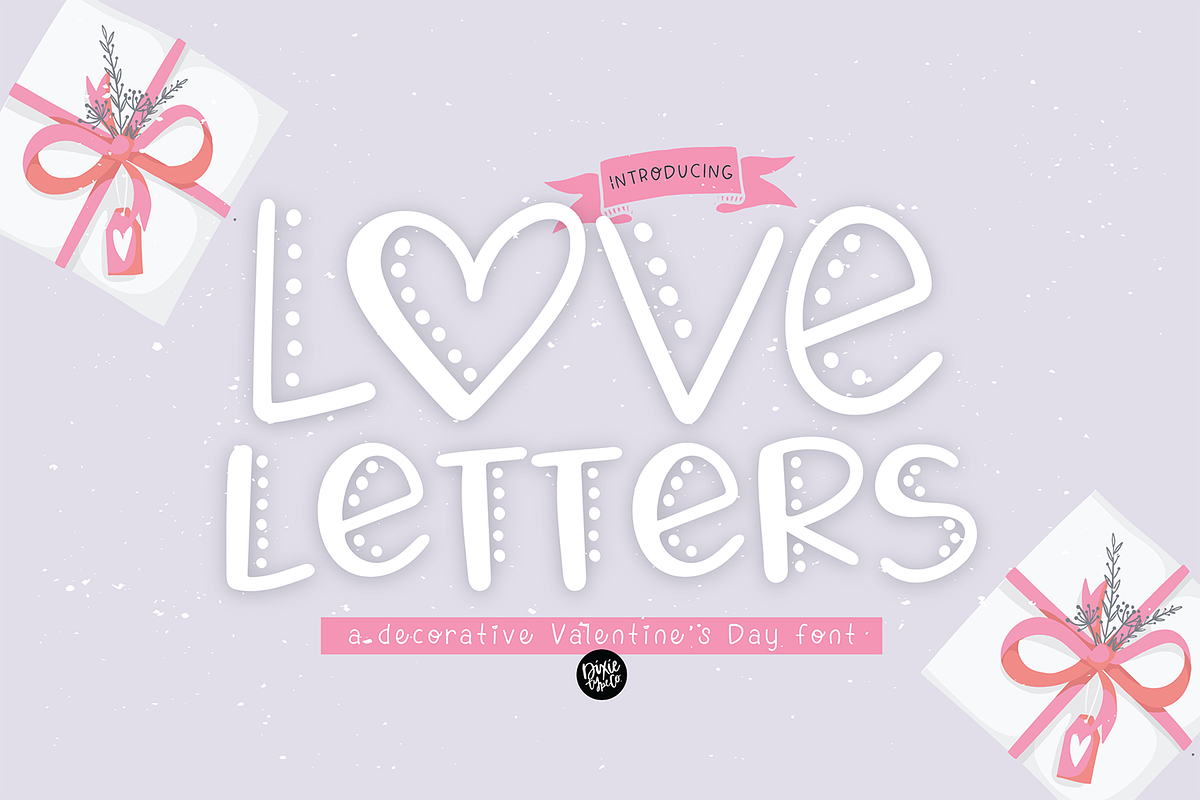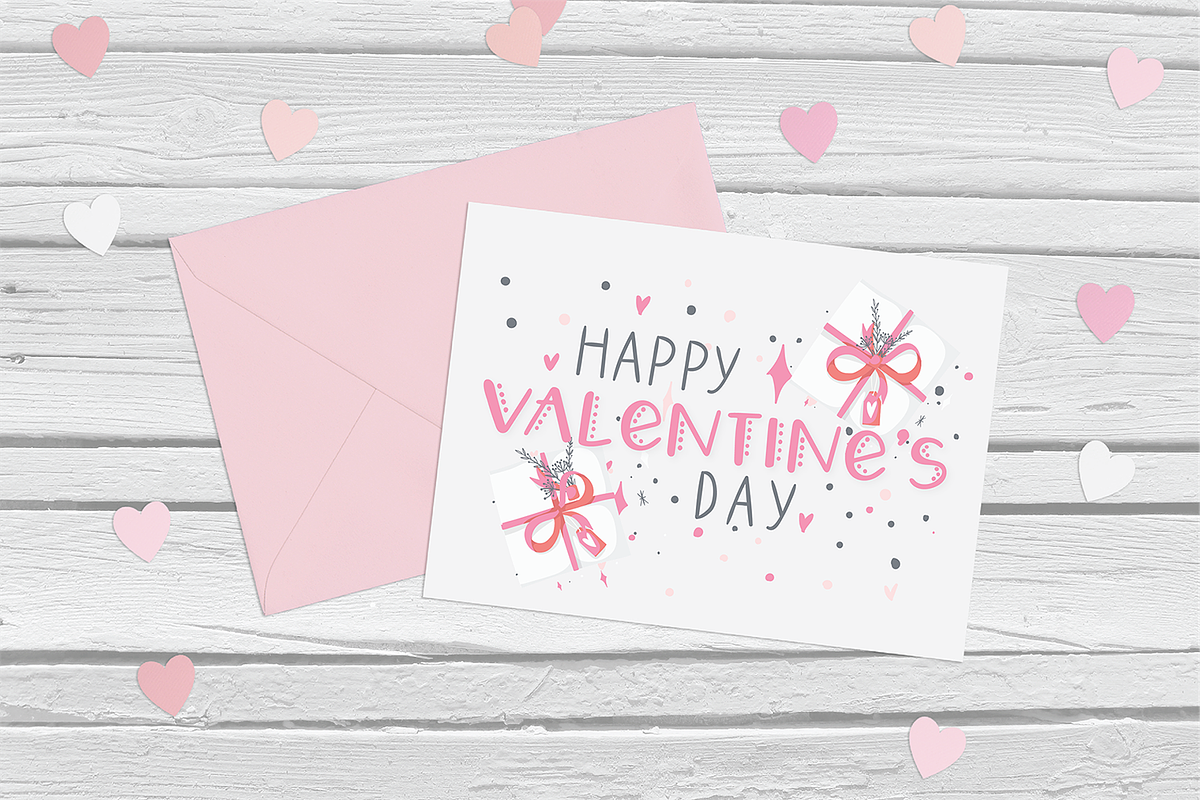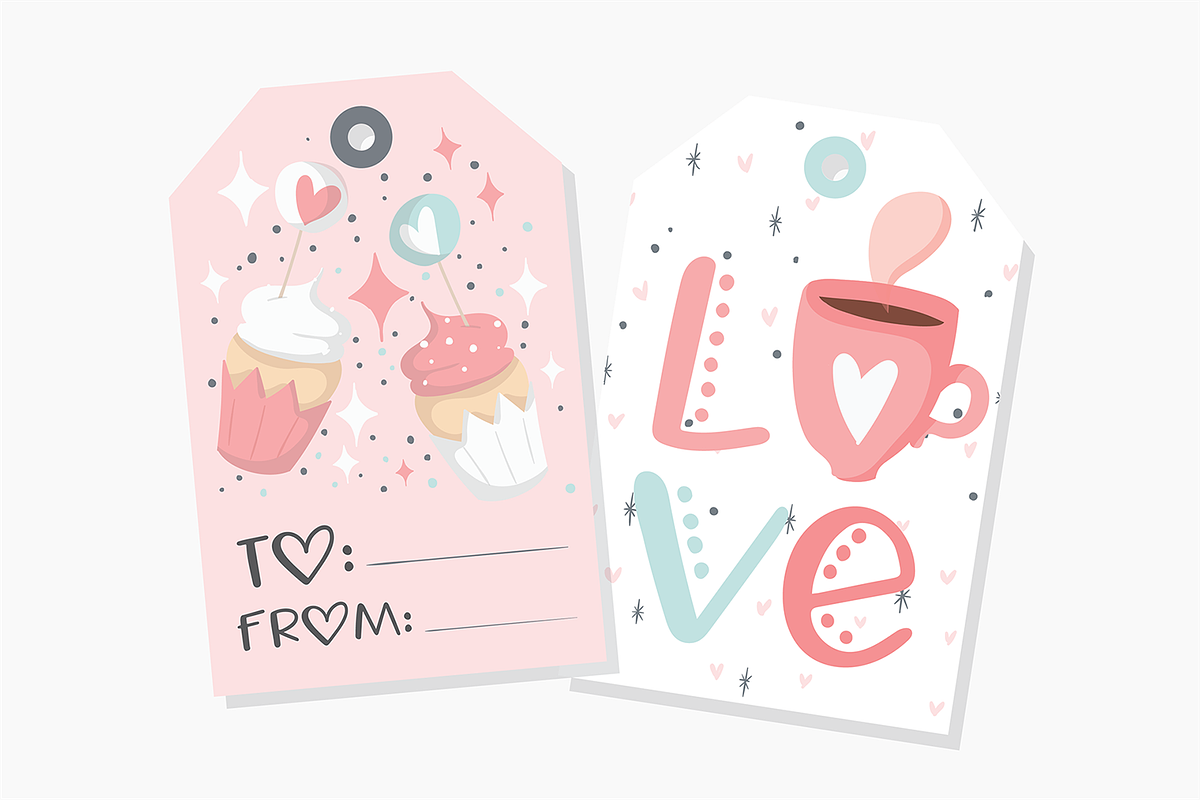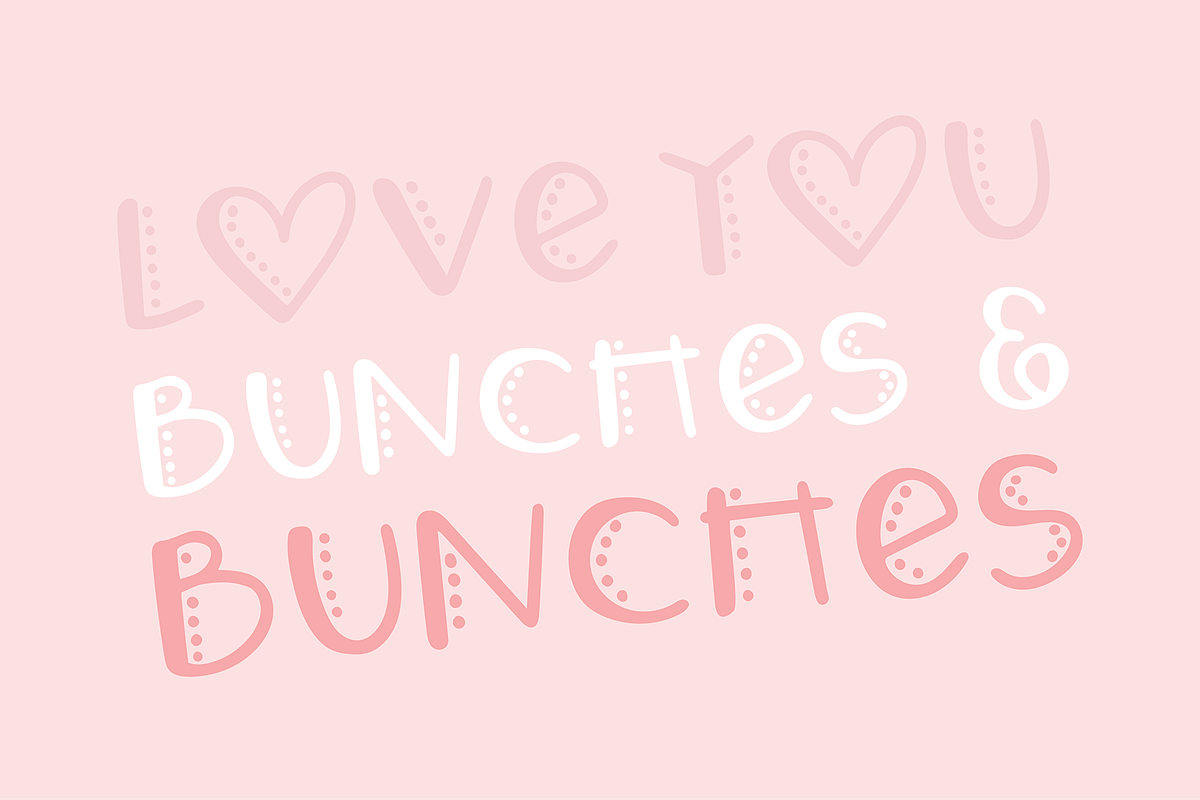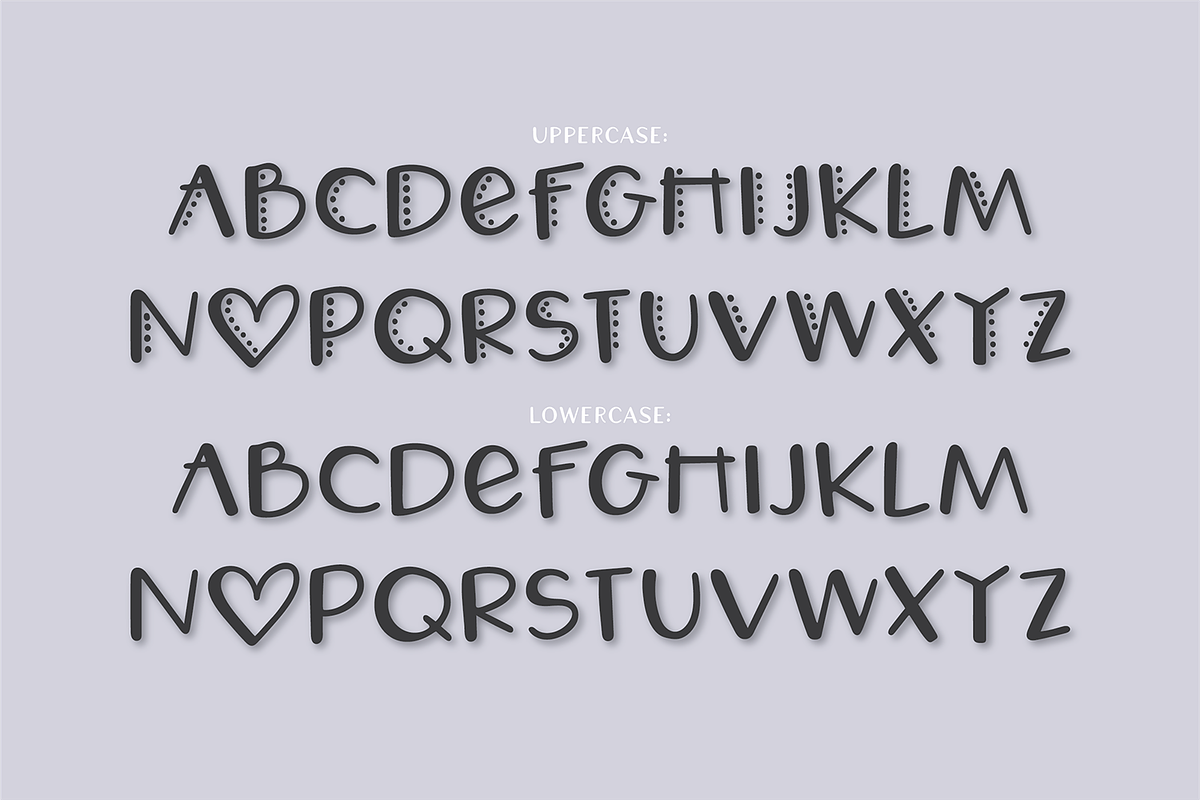
LOVE LETTERS Valentine's Day Font
LOVE LETTERS a decorative Valentine's Day font
{ A typographic font hand lettered with love by Dixie Type Co. }
This font was made specifically for your Valentine's/Wedding projects. Use it for Valentine's cards, crafts for decor, invitations, and more! This font includes basic punctuation.